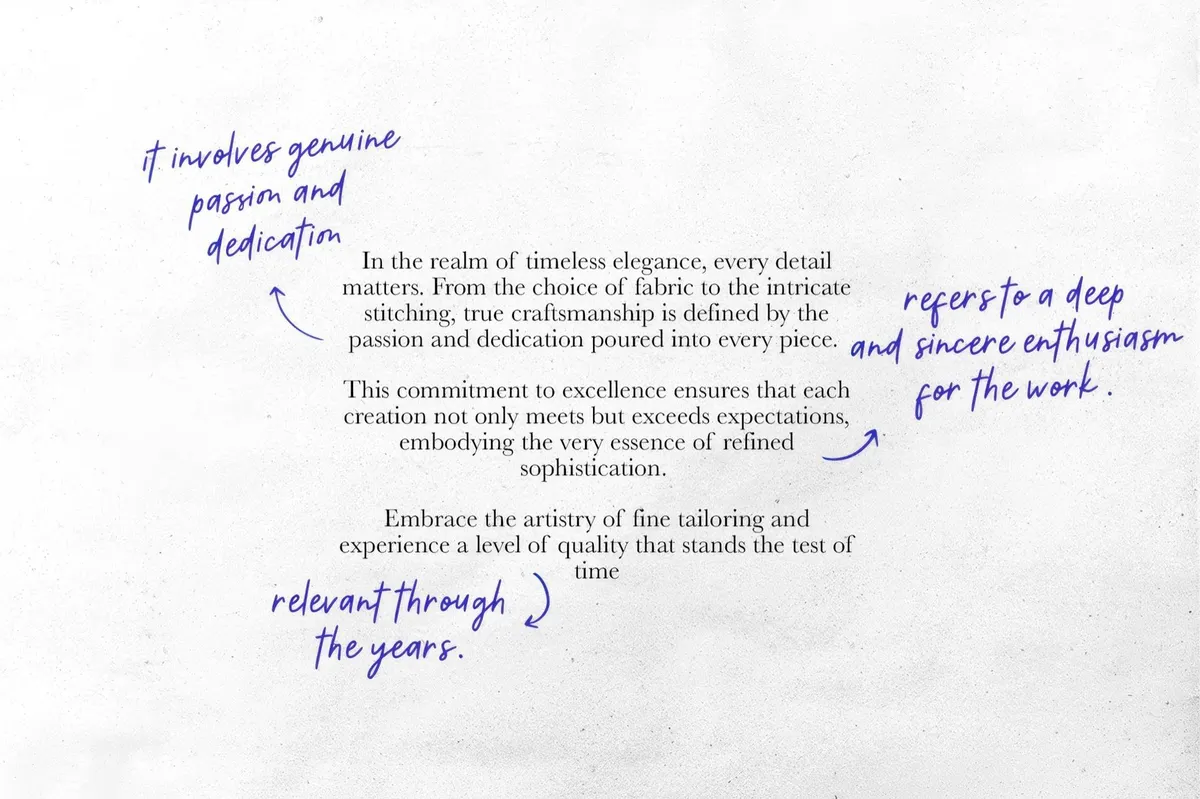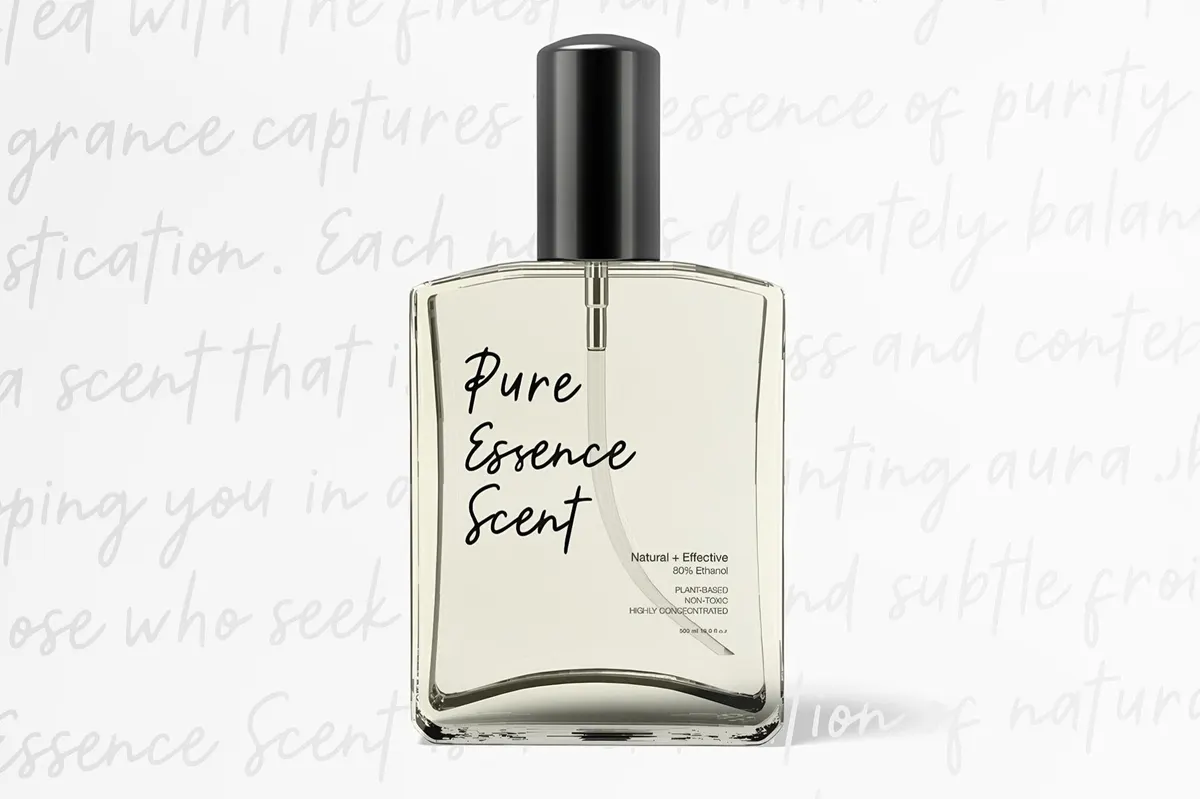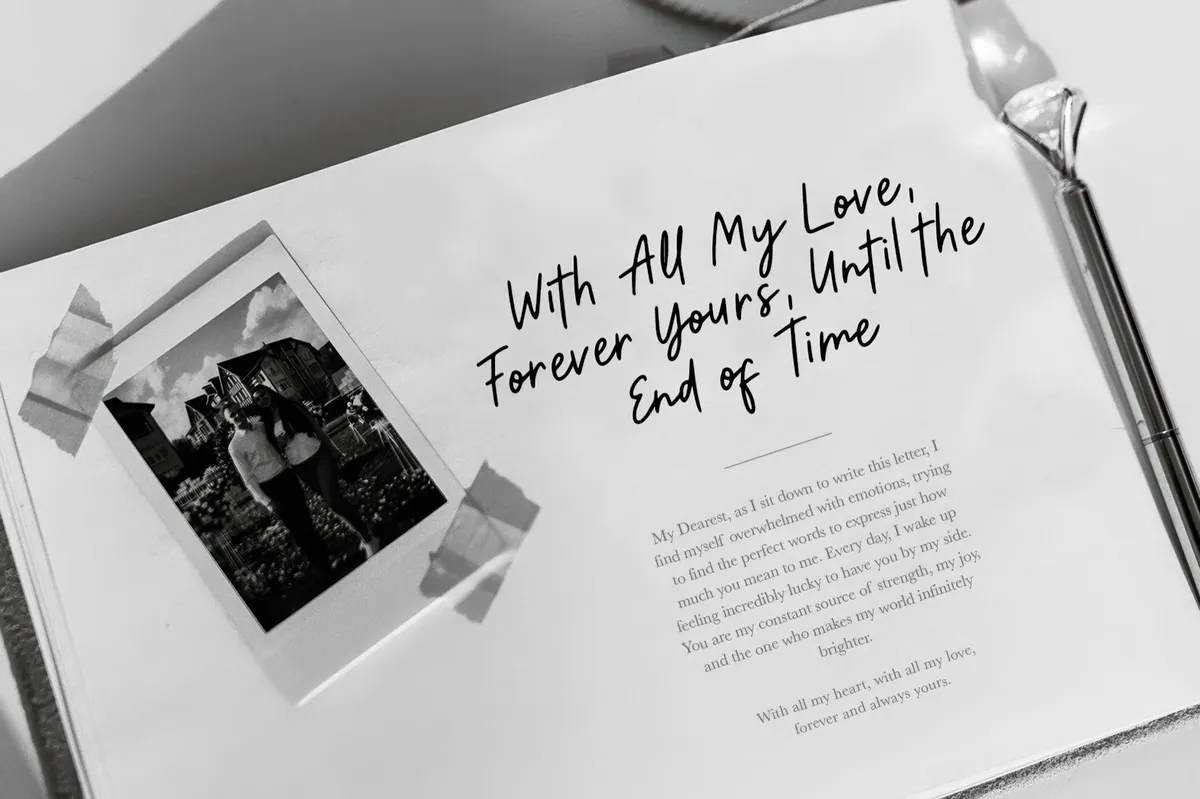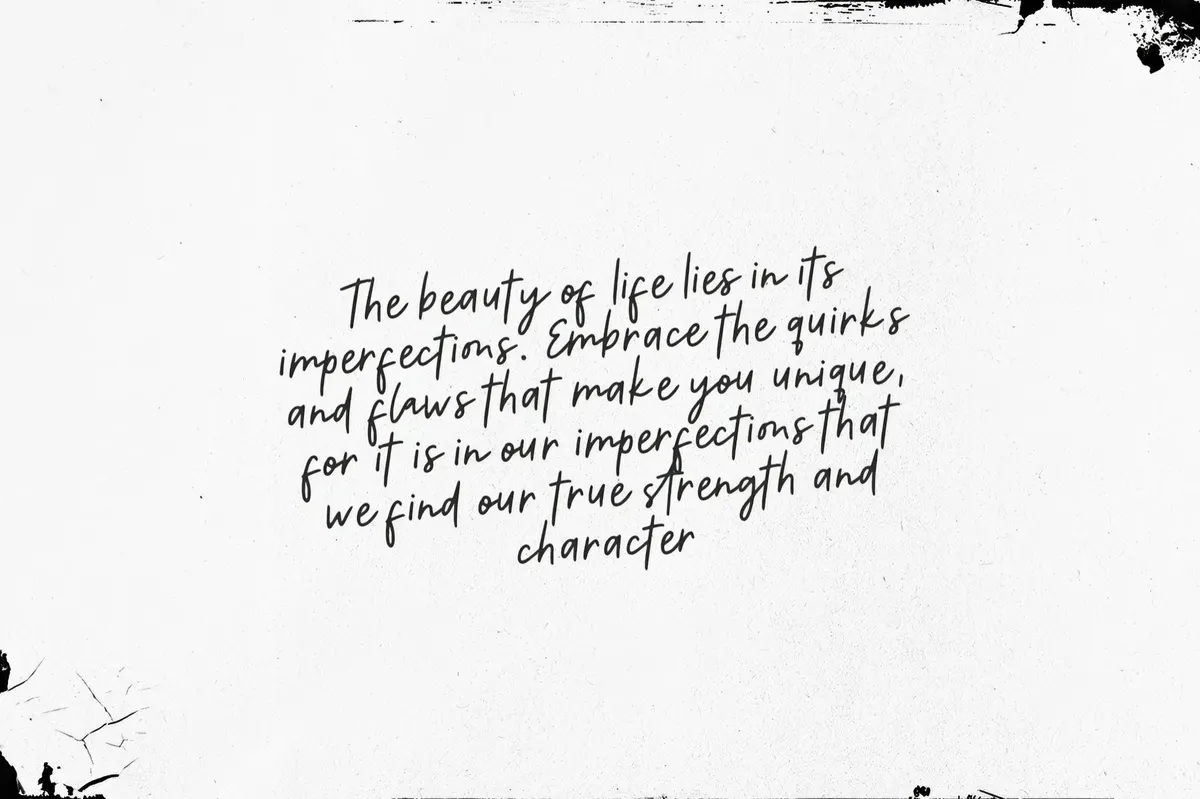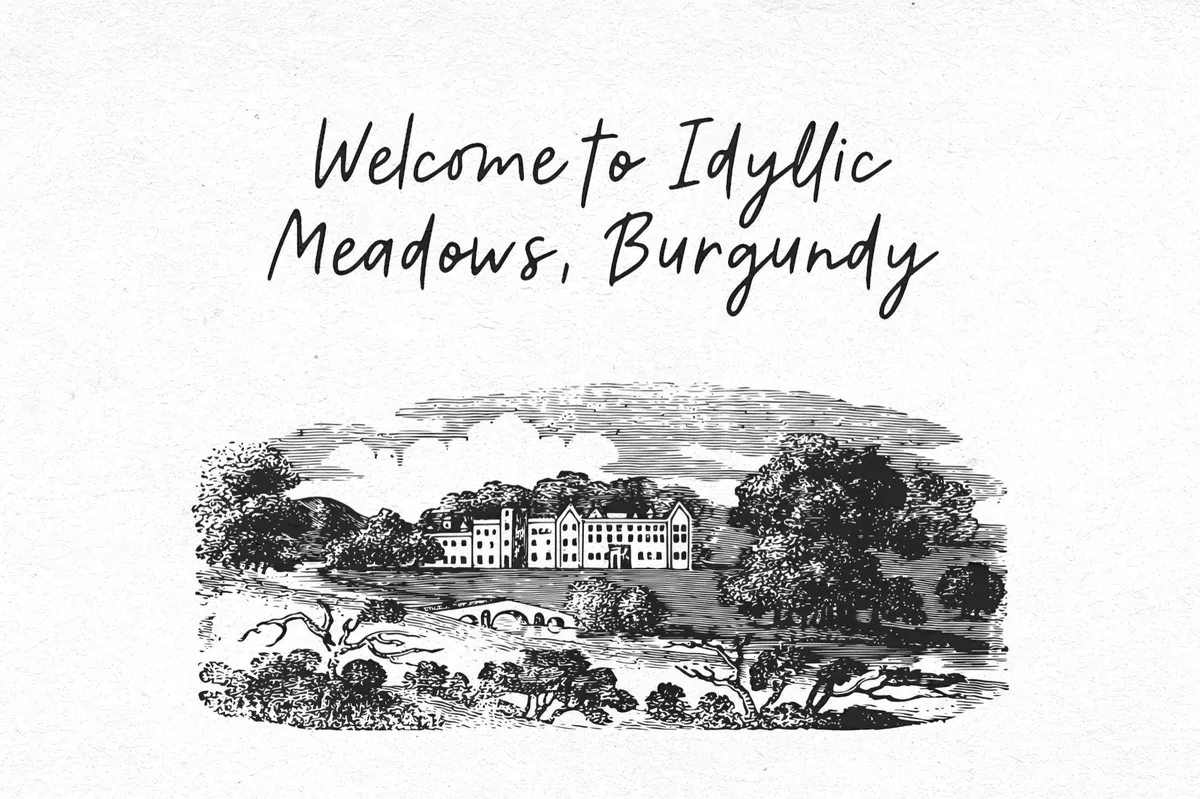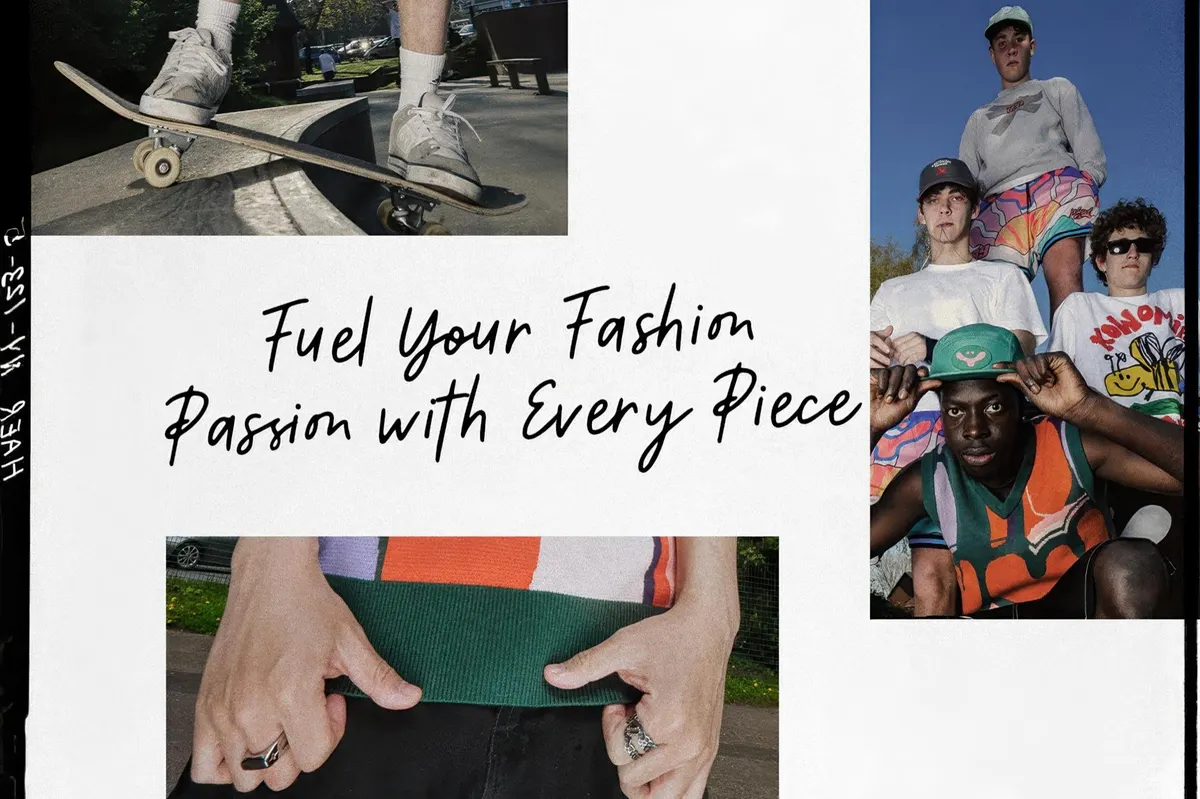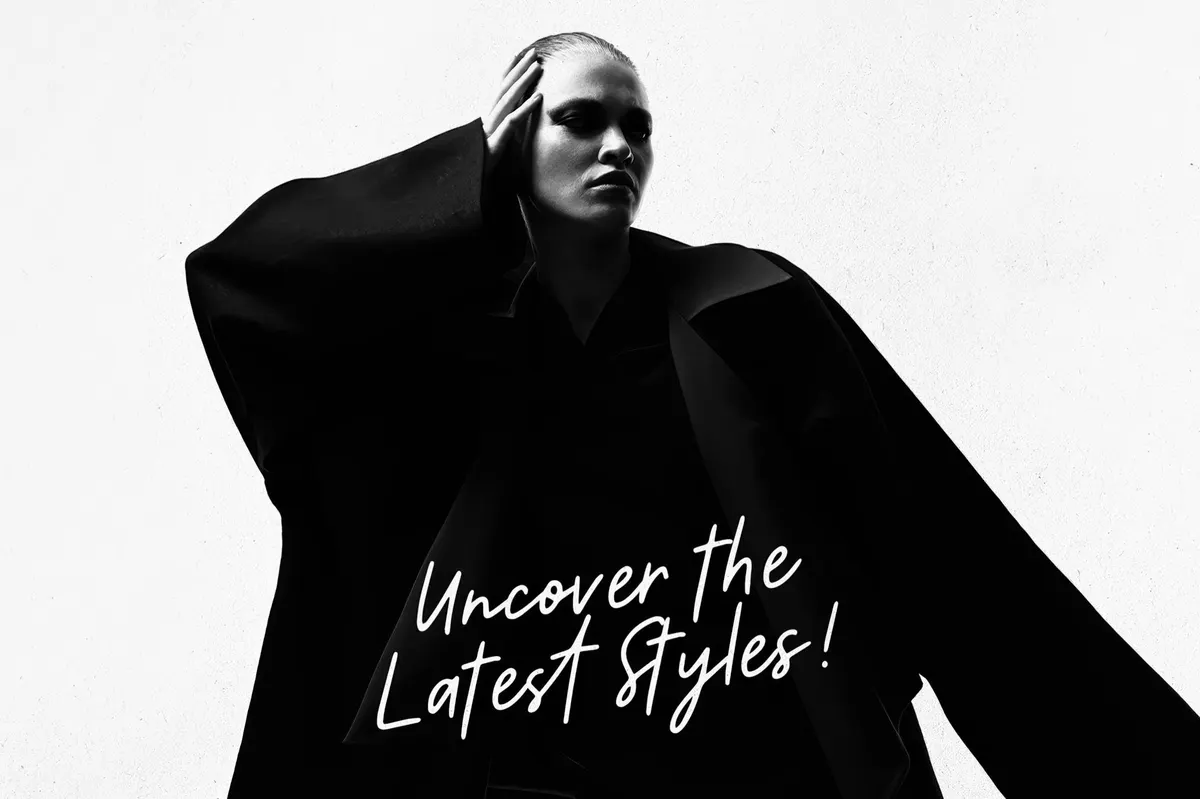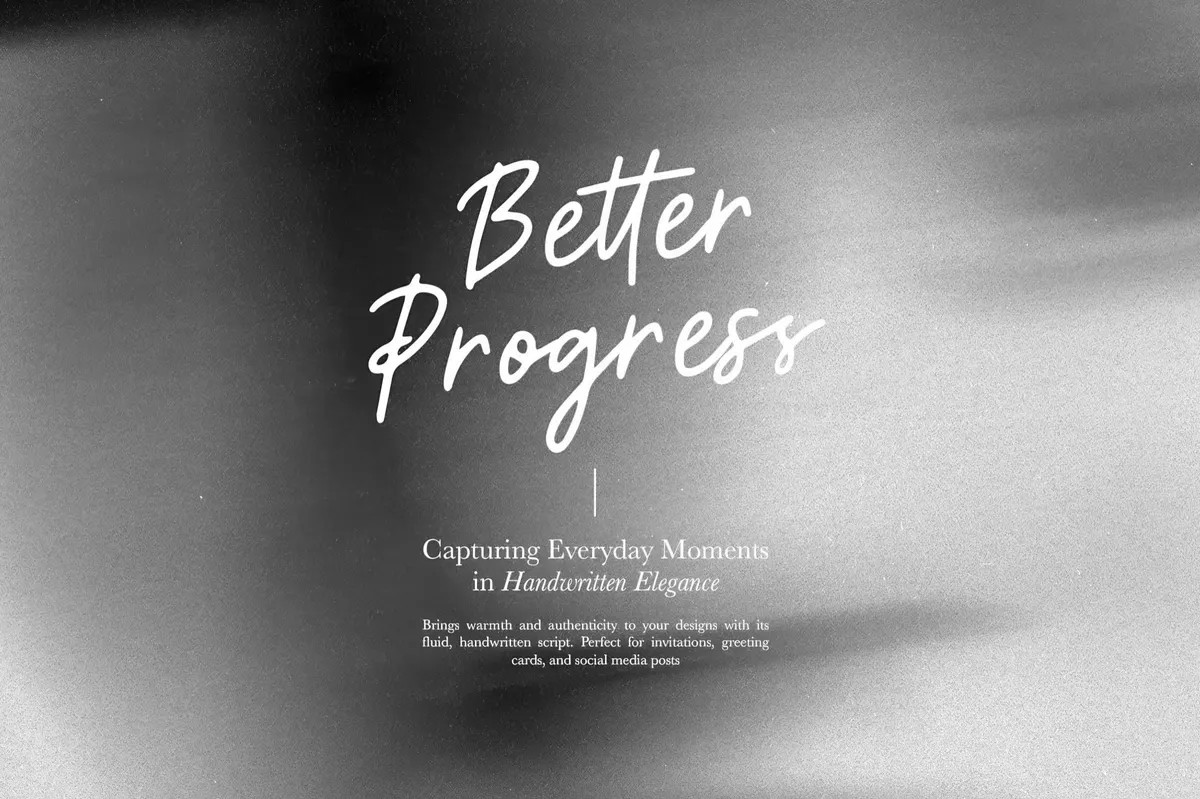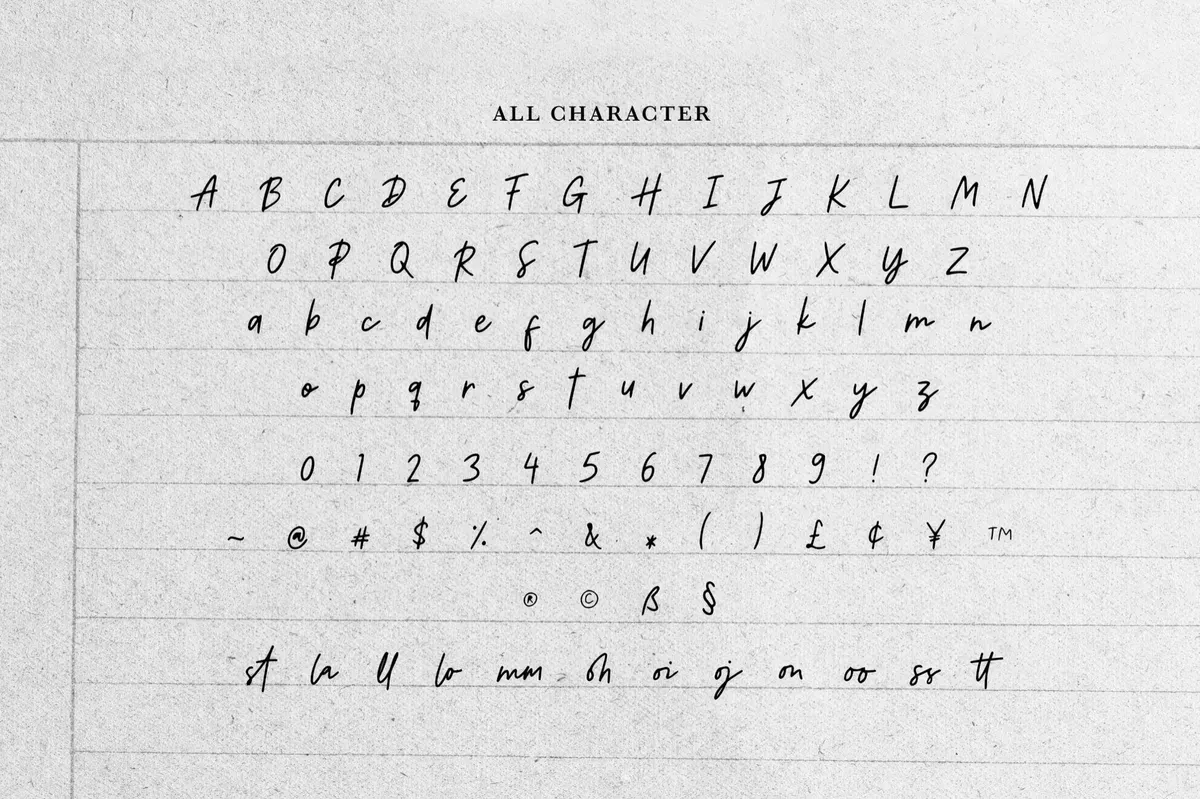
Better Progress — Minimalist Script
Better Progress script font brings pure sincerity but with a nice splash of rhythm to your designs. In other words, it captures the essence of handcrafted letters, that happen when a pen meets paper with purpose. This minimalist handwritten script offers clean yet expressive forms, perfect for logotypes, quotes, and brand messaging. The set of glyphs includes upper and lower case letters, punctuation, and numerals. The built-in ligatures bring authenticity to each word, making your designs look like they were written by someone you’d actually want to talk to. While full multilingual support ensures your message can go worldwide.